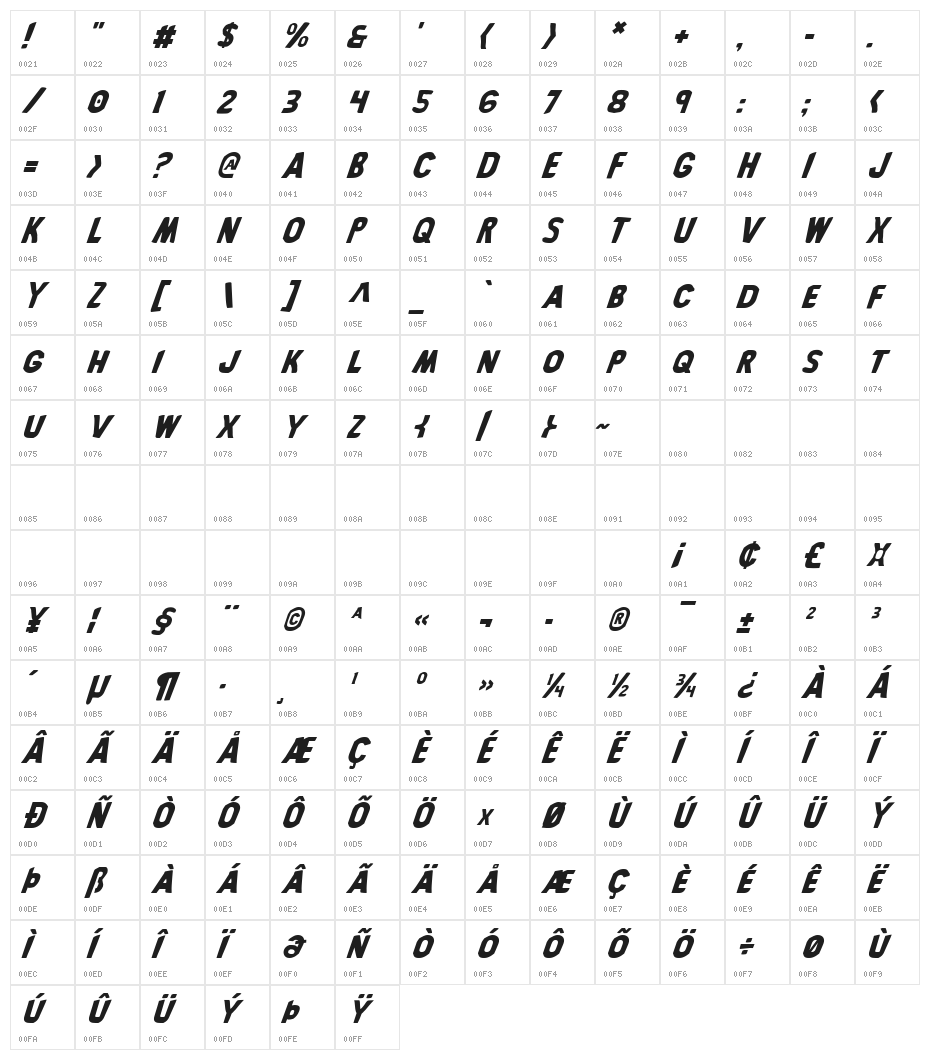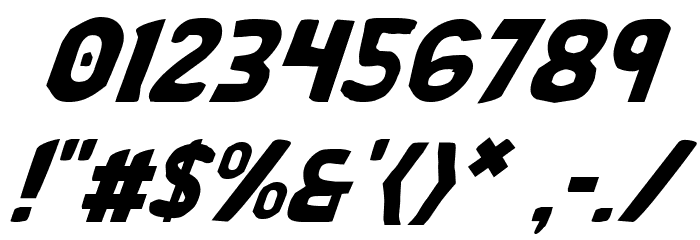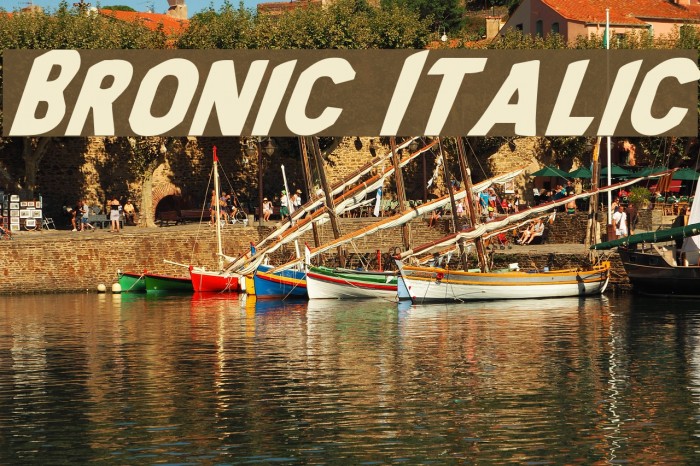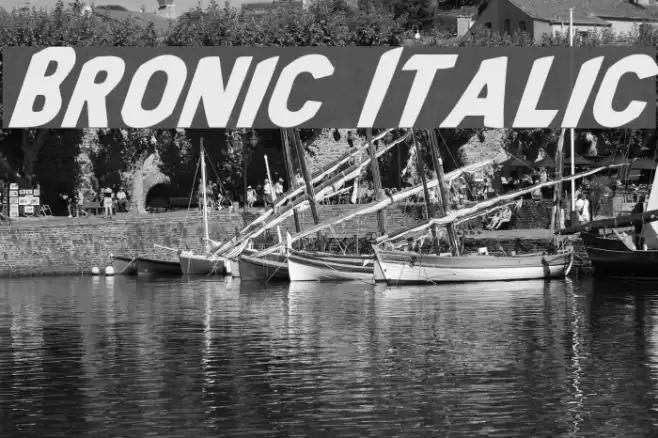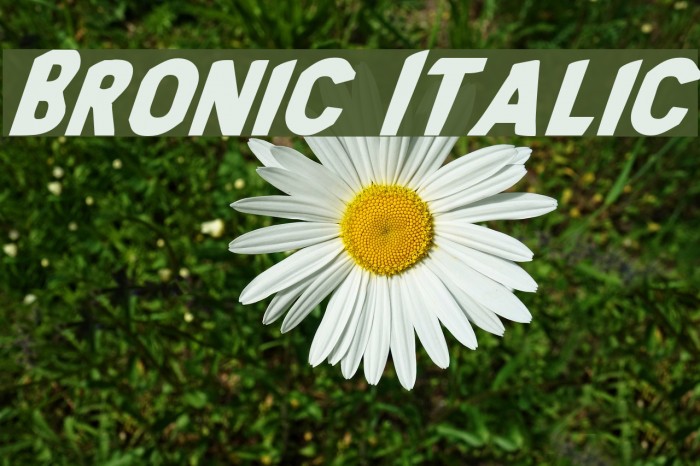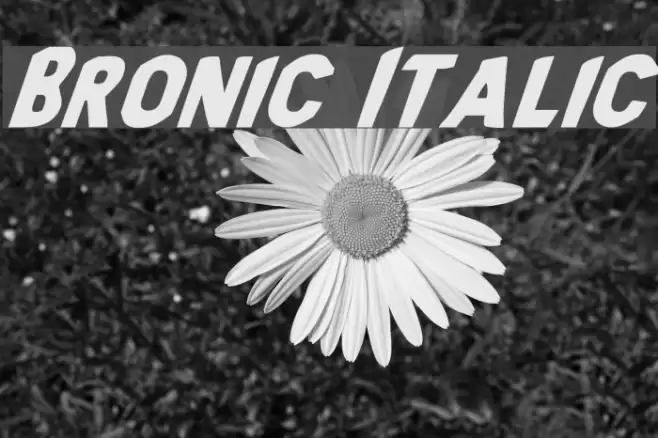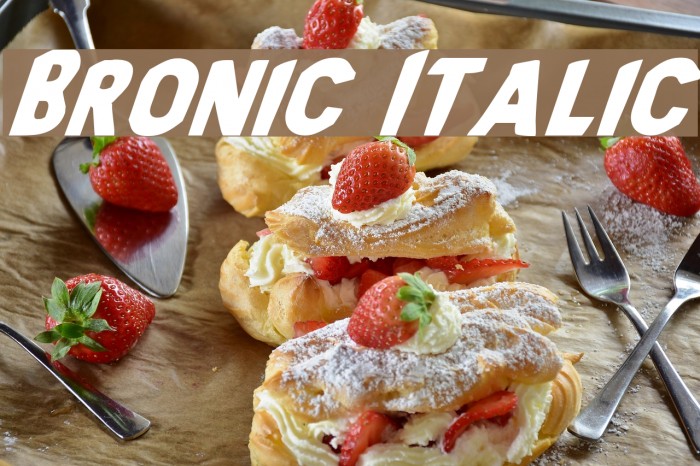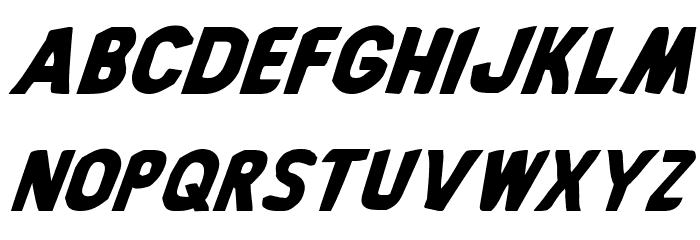
Bronic Italic Font
Bronic Italic Description
This font features a bold and dynamic style with a distinct italic slant, giving it a sense of motion and energy. The characters are thick and robust, with a slightly condensed appearance that enhances their impact. The strokes are consistent in weight, providing a uniform look across all characters. The font includes a full set of uppercase and lowercase letters, numbers, and a variety of special characters, making it versatile for different design needs. Its boldness and slant make it particularly suitable for attention-grabbing headlines and titles.
| Proposed Projects | Ideal for sports branding, dynamic posters, and impactful headlines. |